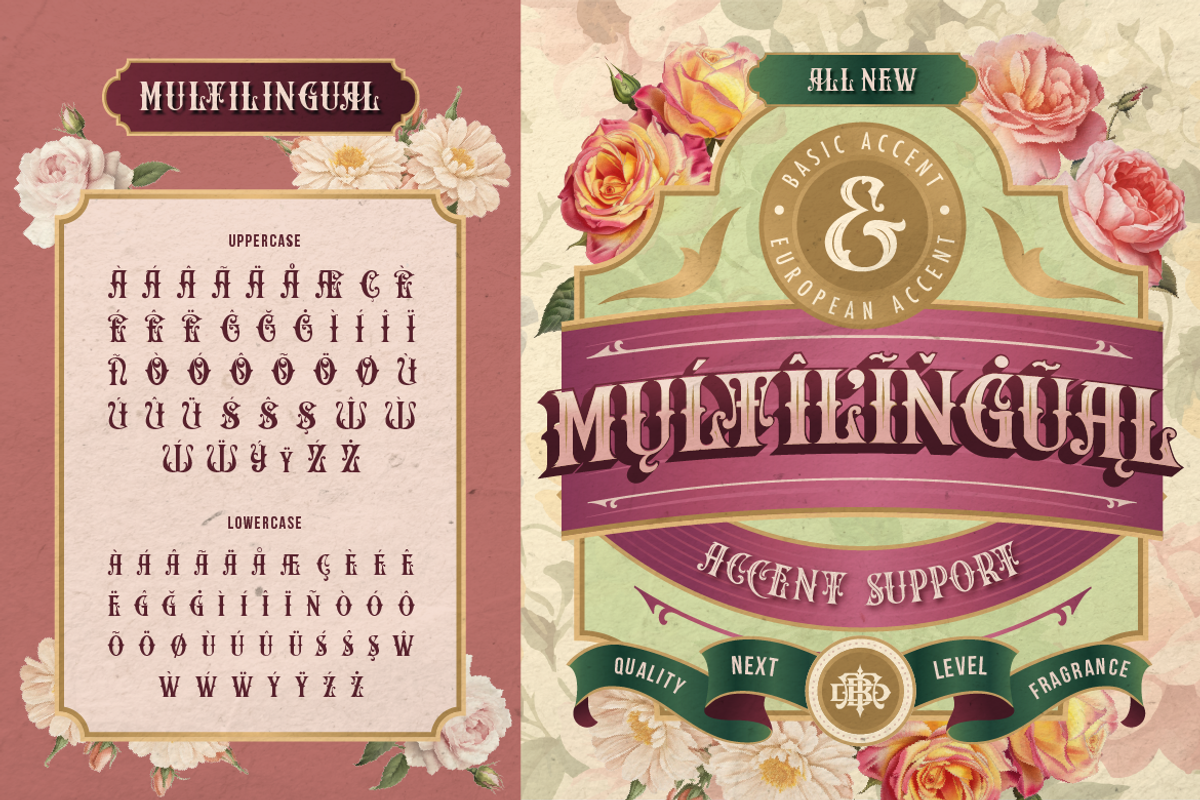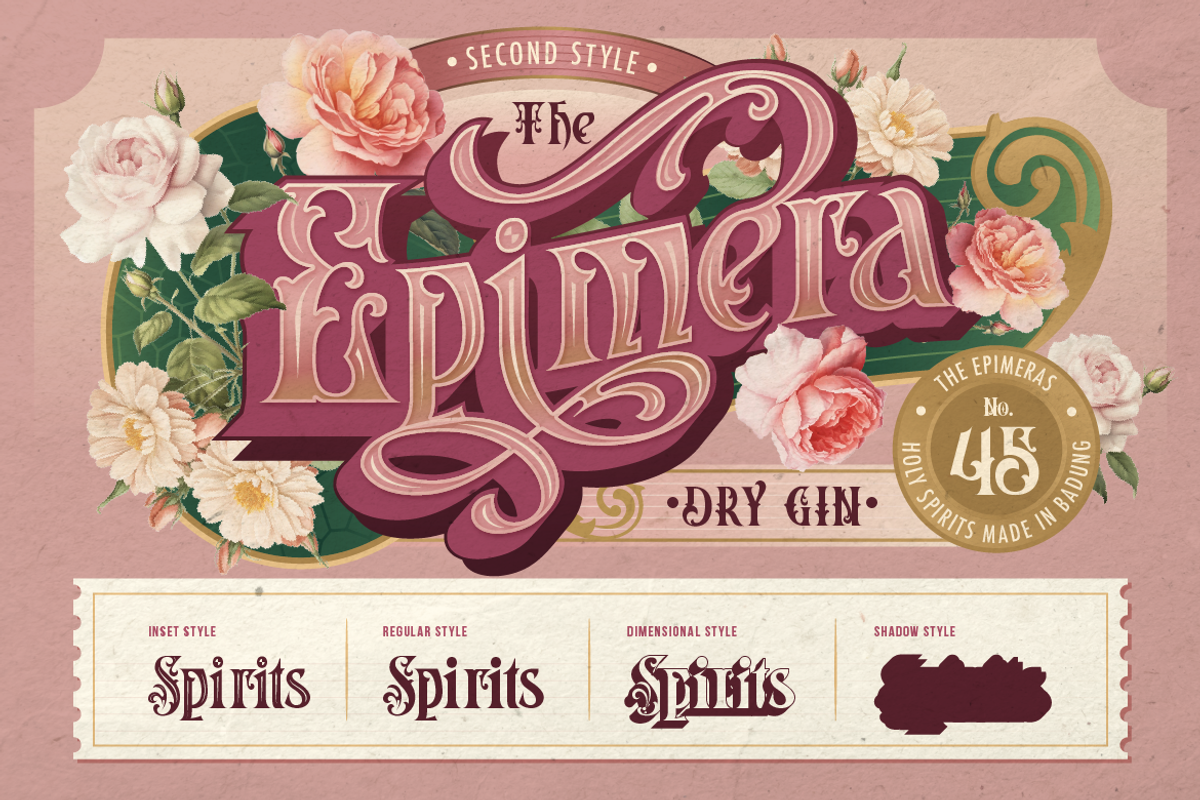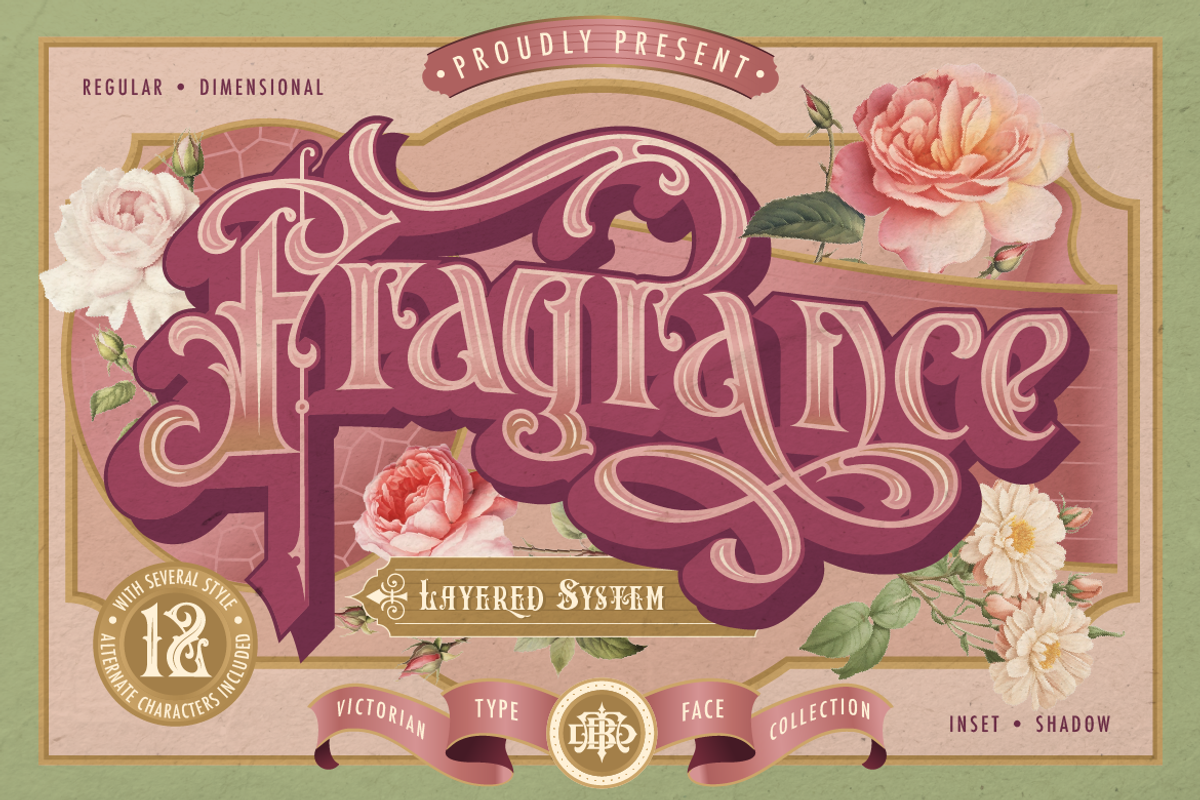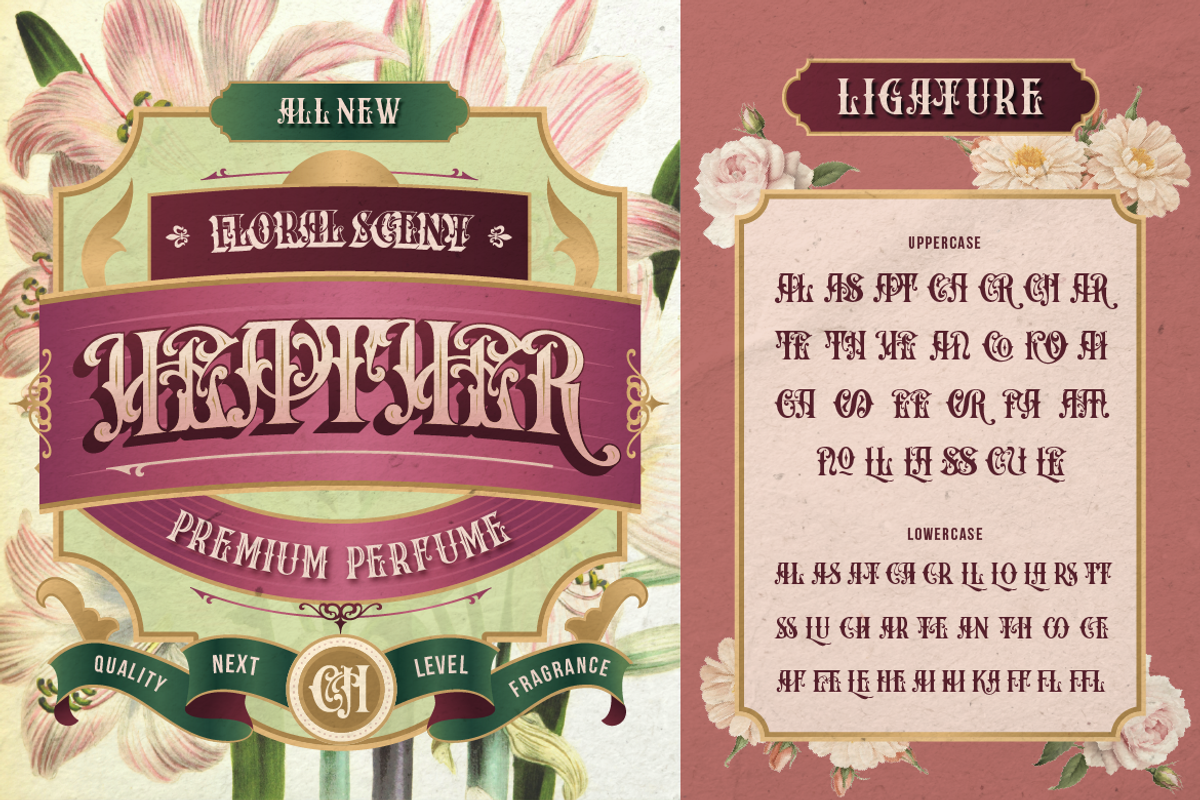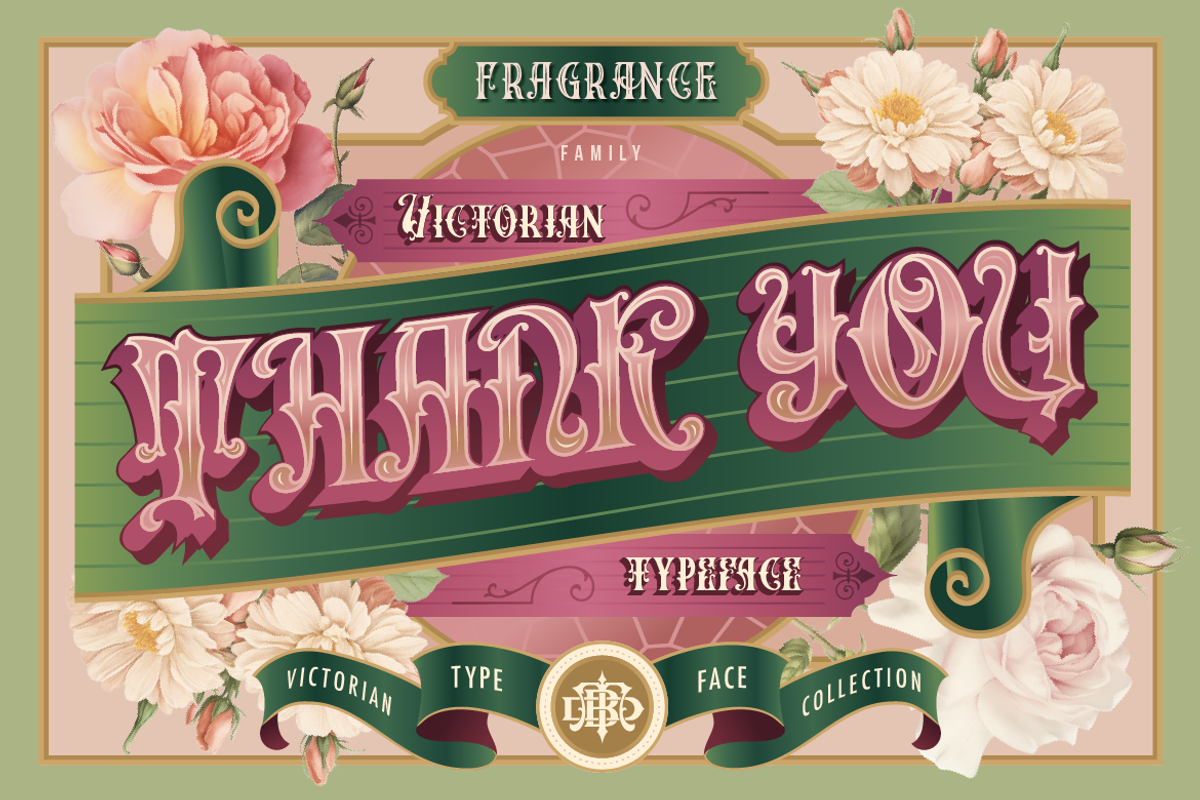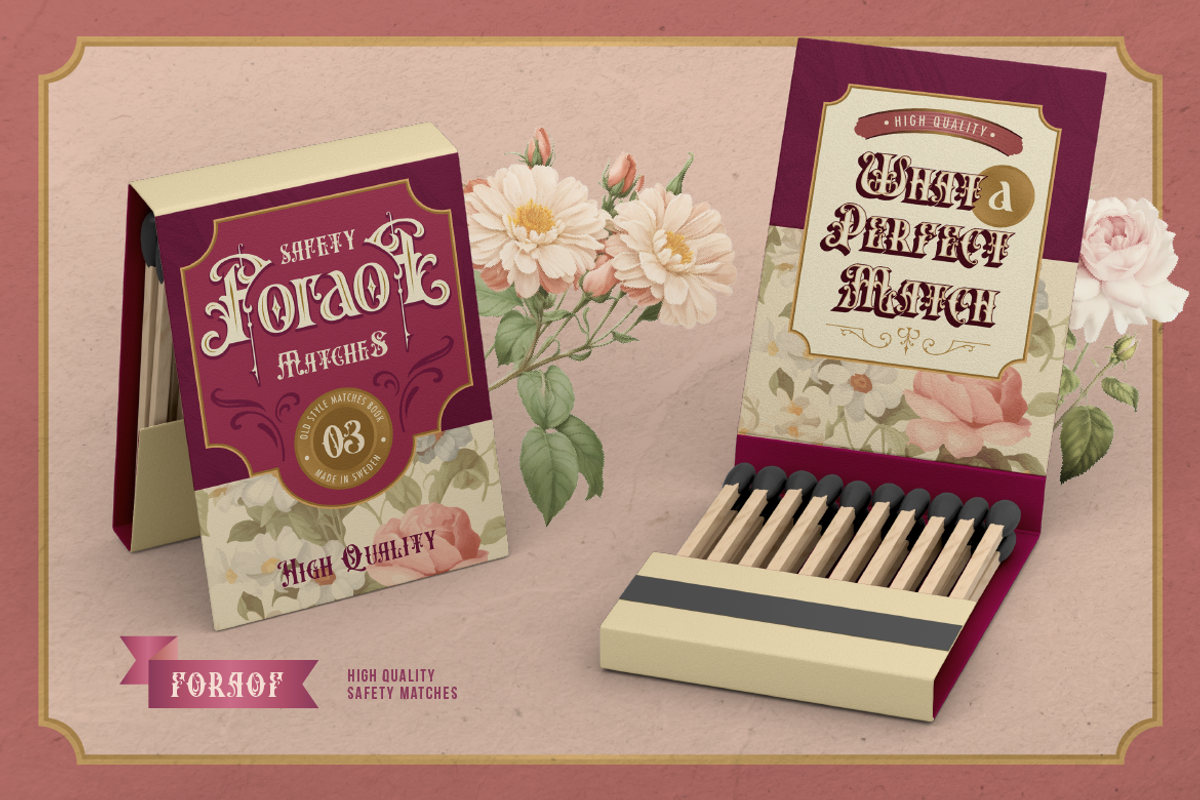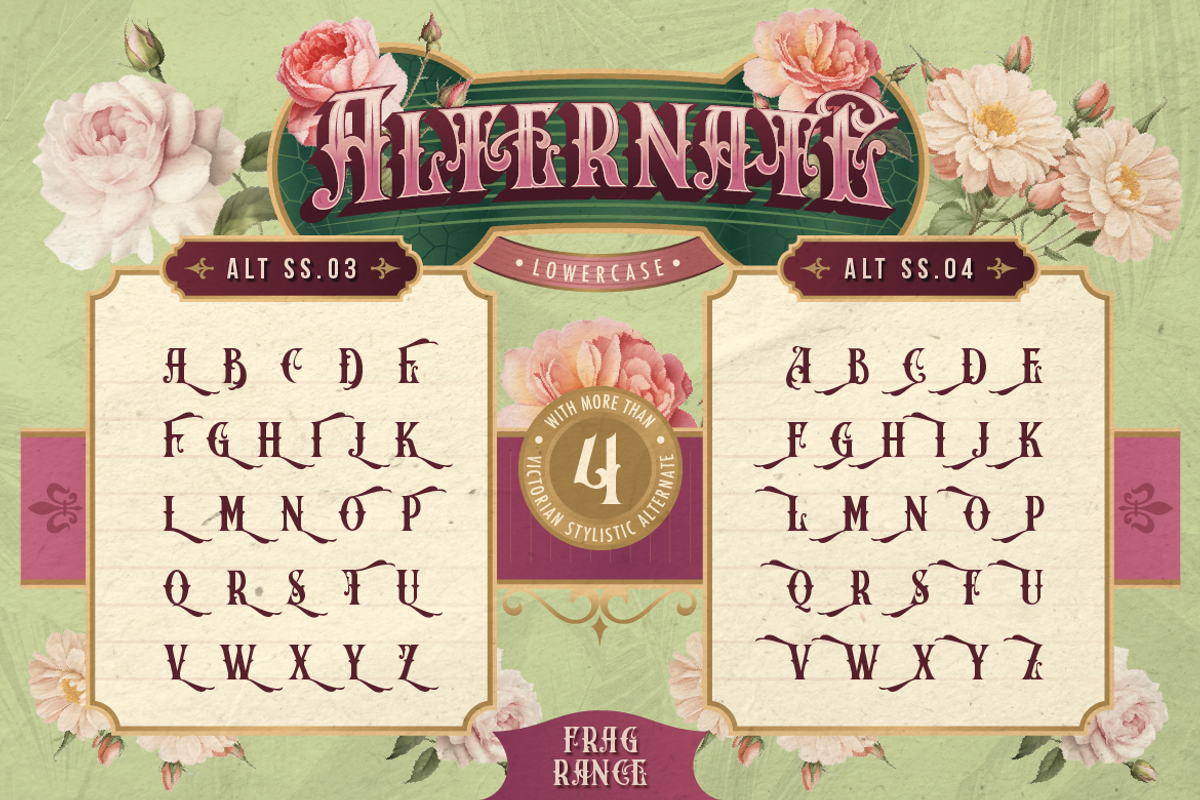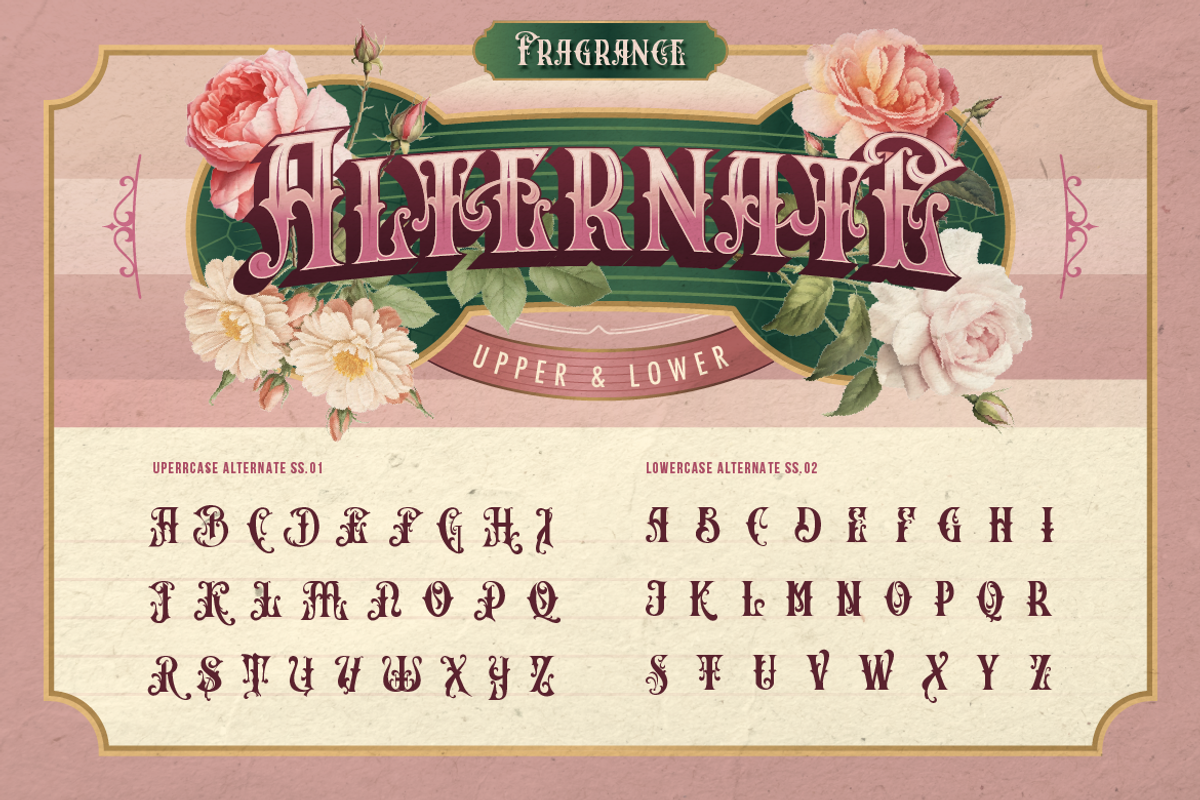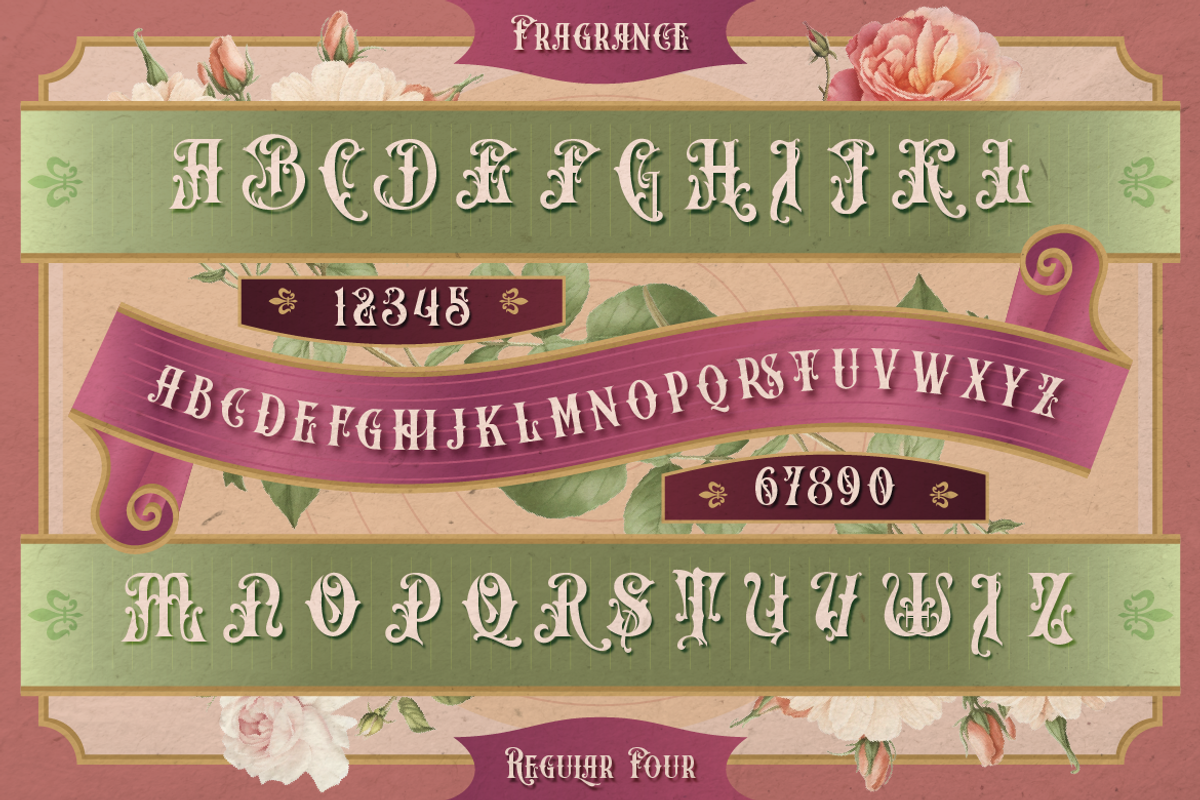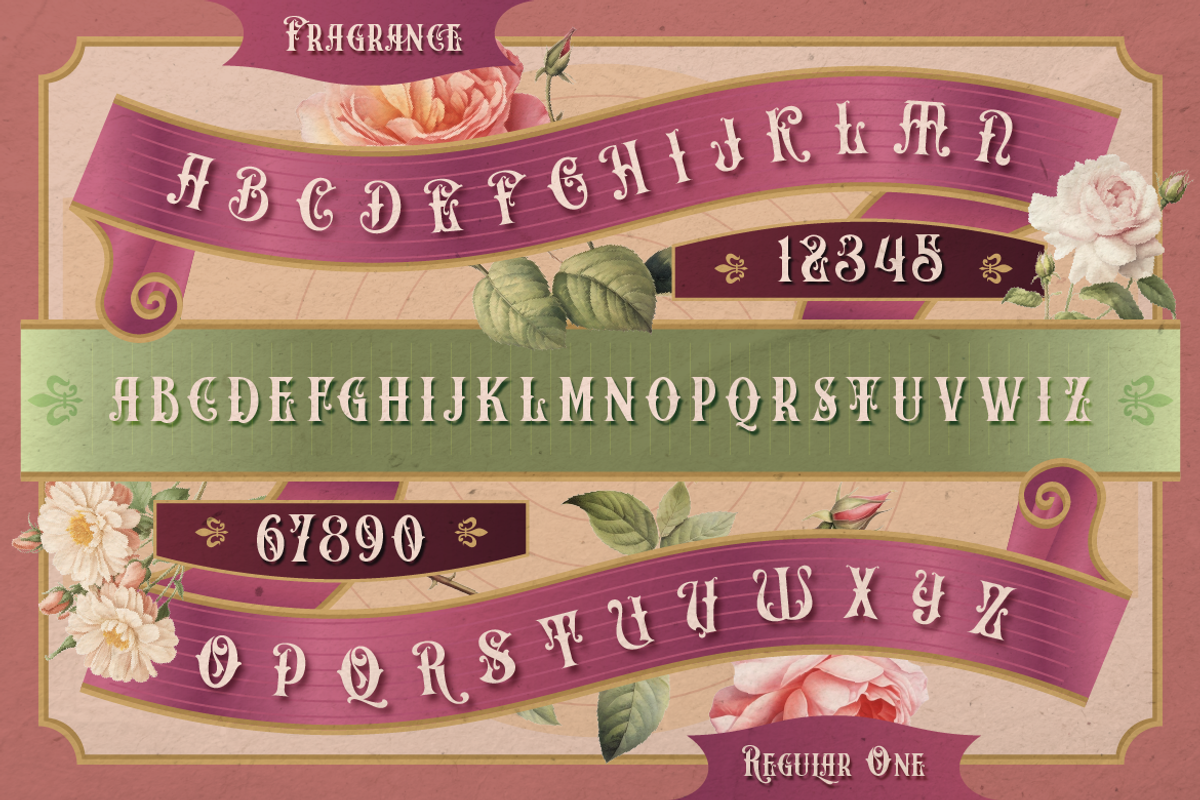
Fragrance
Step back in time with our Fragrance Font, victorian with 4 styles. Characterized by ornate and elaborate design, reflecting the artistic style of the late 19th and early 20th centuries. This font have 4 styles, inset, regular, dimensional and shadow styles. This font perfect for projects that require a touch of antique and historical charm, such as branding, packaging, posters and etc.